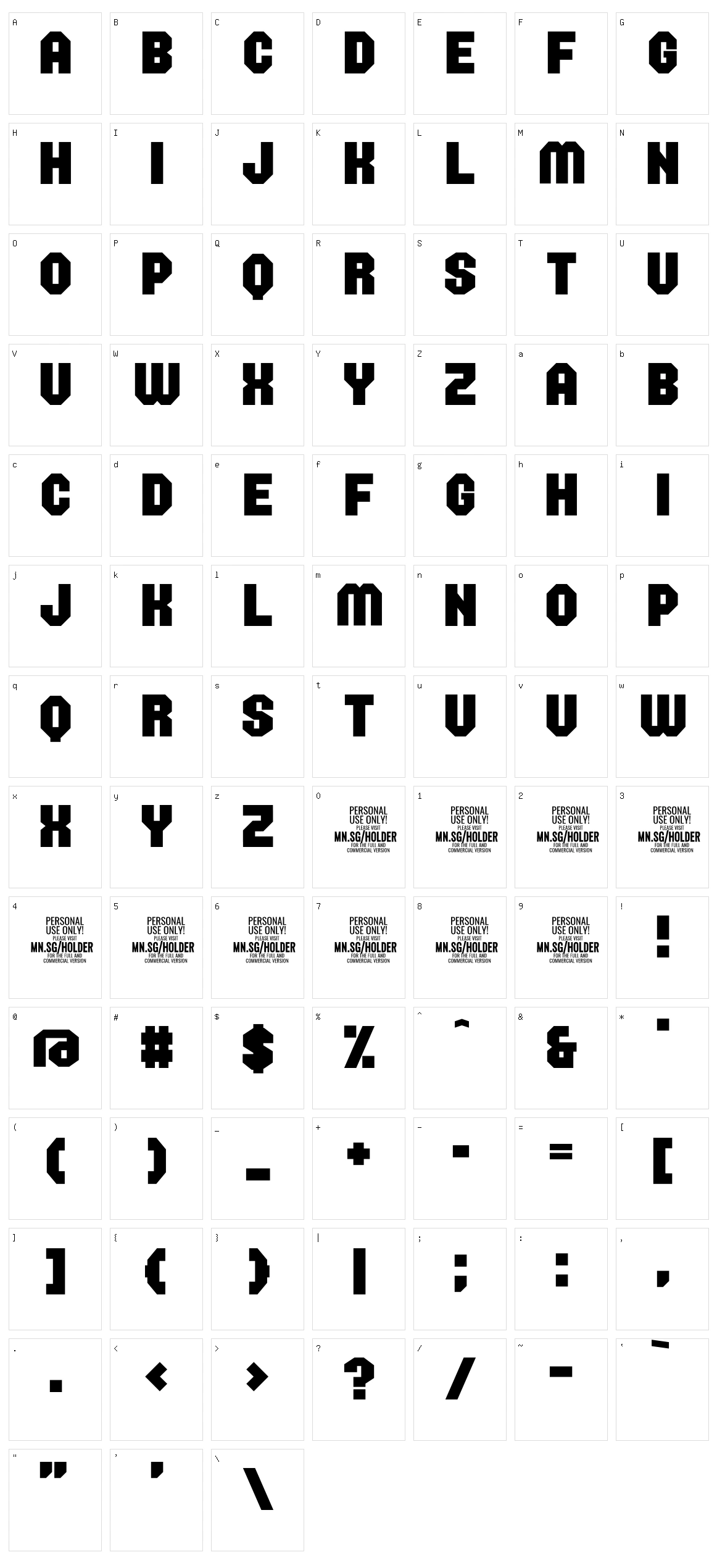
Holder is a cool college typeface.
In a sporty style, this baseball font has the classic university look, with strict and geometric letterforms while retaining a vivid personality.
The Holder family consists of six styles:
Thin, Light, Medium, Bold, Black and the bordered typeface Outline, complimenting each other for the greatest design possibilities.
The font is built with advanced OpenType functionality and has a guaranteed top-notch quality, containing stylistic and contextual alternates, ligatures and more features; all to give you full control and customizability.
It has extensive lingual support, covering all Latin-based languages, from Northern Europe to South Africa, from America to South-East Asia.
It contains all characters and symbols you'll ever need, including all punctuation and numbers.